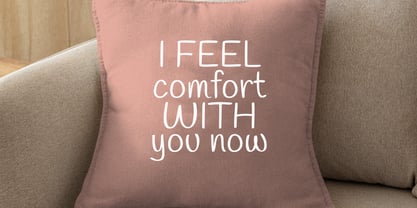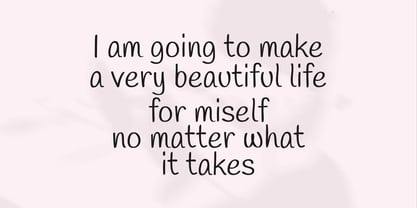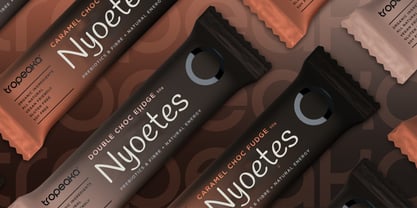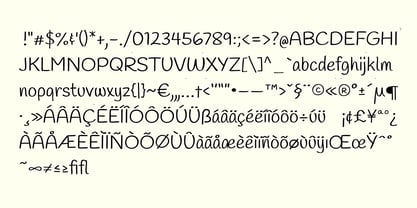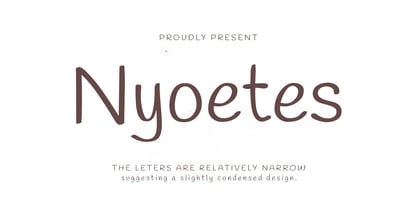
Nyoetes
by Aqeela Studio
The Nyoetes Font Family was designed by Muhammad Nasir and published by Aqeela Studio. Nyoetes contains 1 styles.
Nyoetes, Handwritten Style It mimics natural handwriting with variations in stroke thickness, giving it a personal and approachable feel.